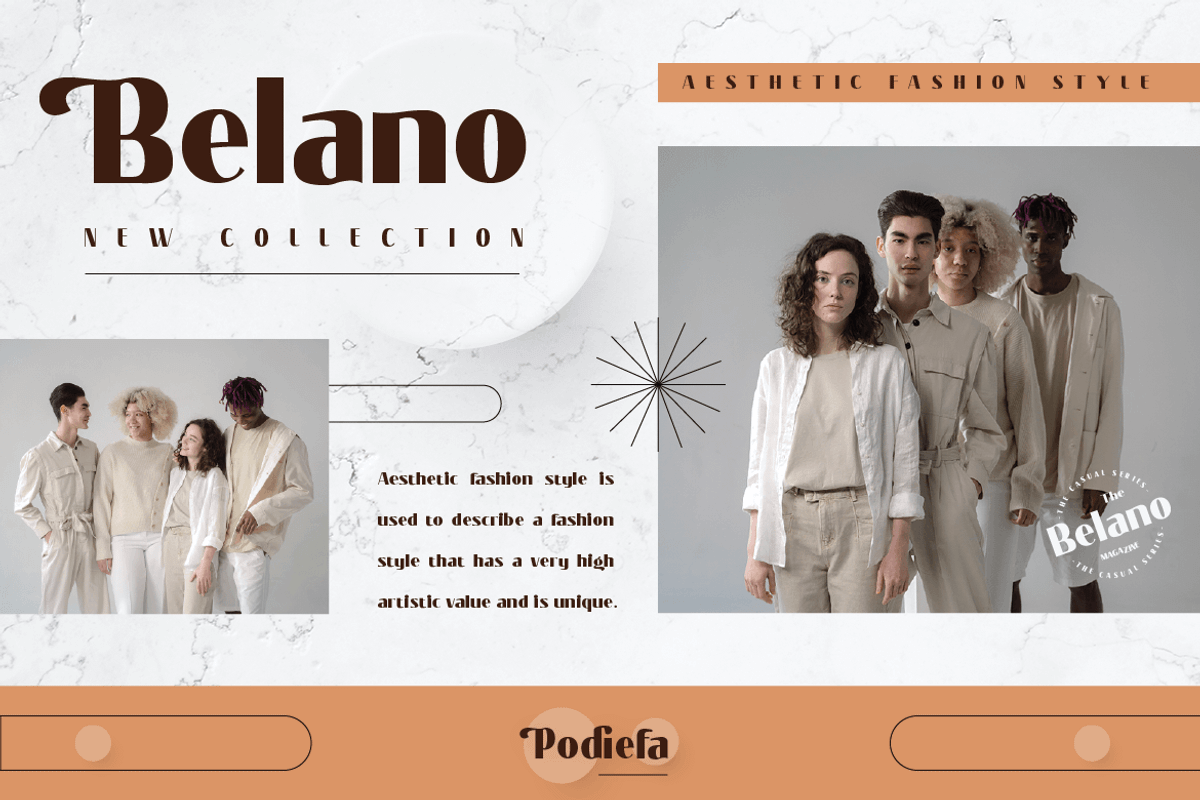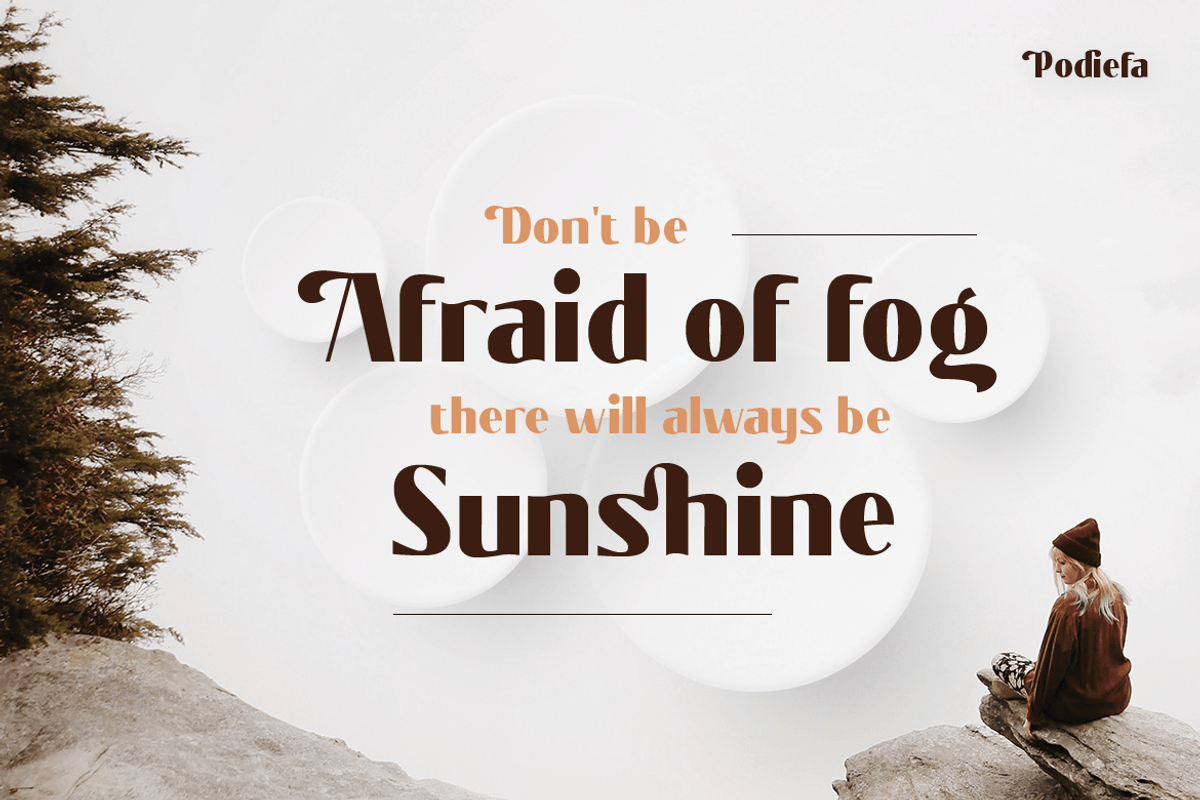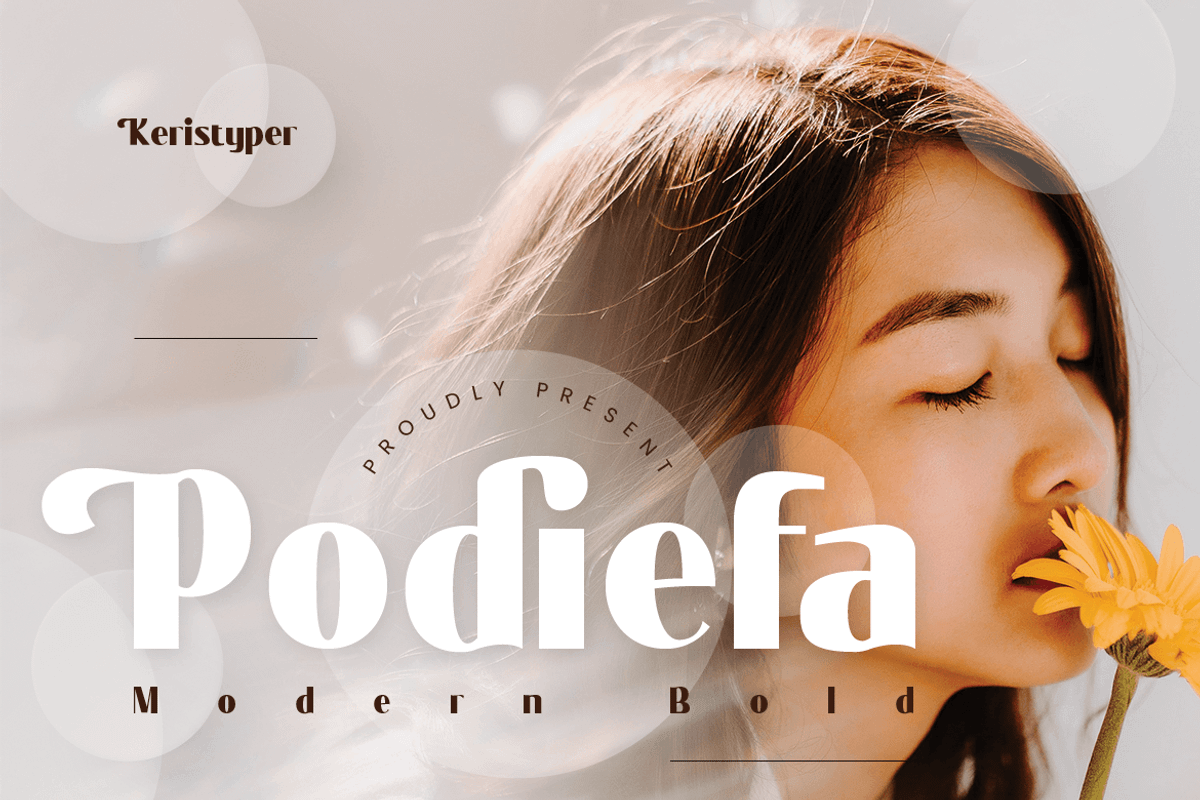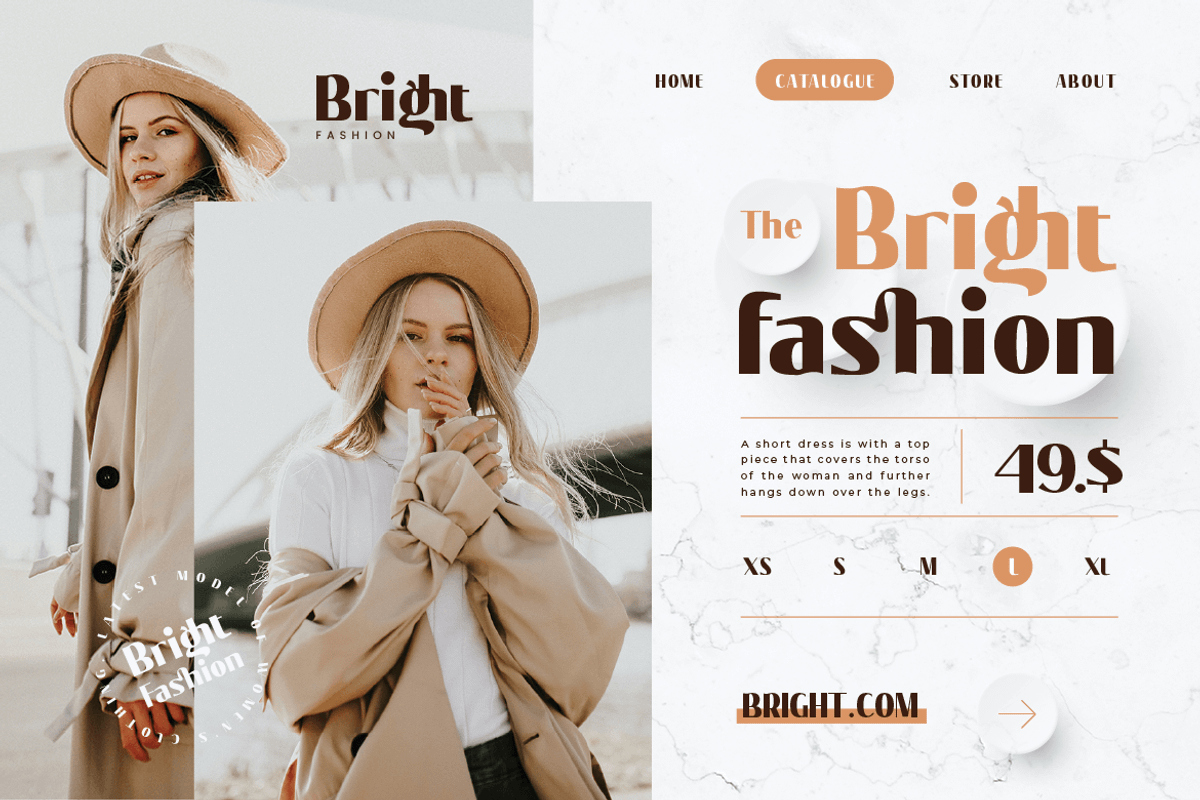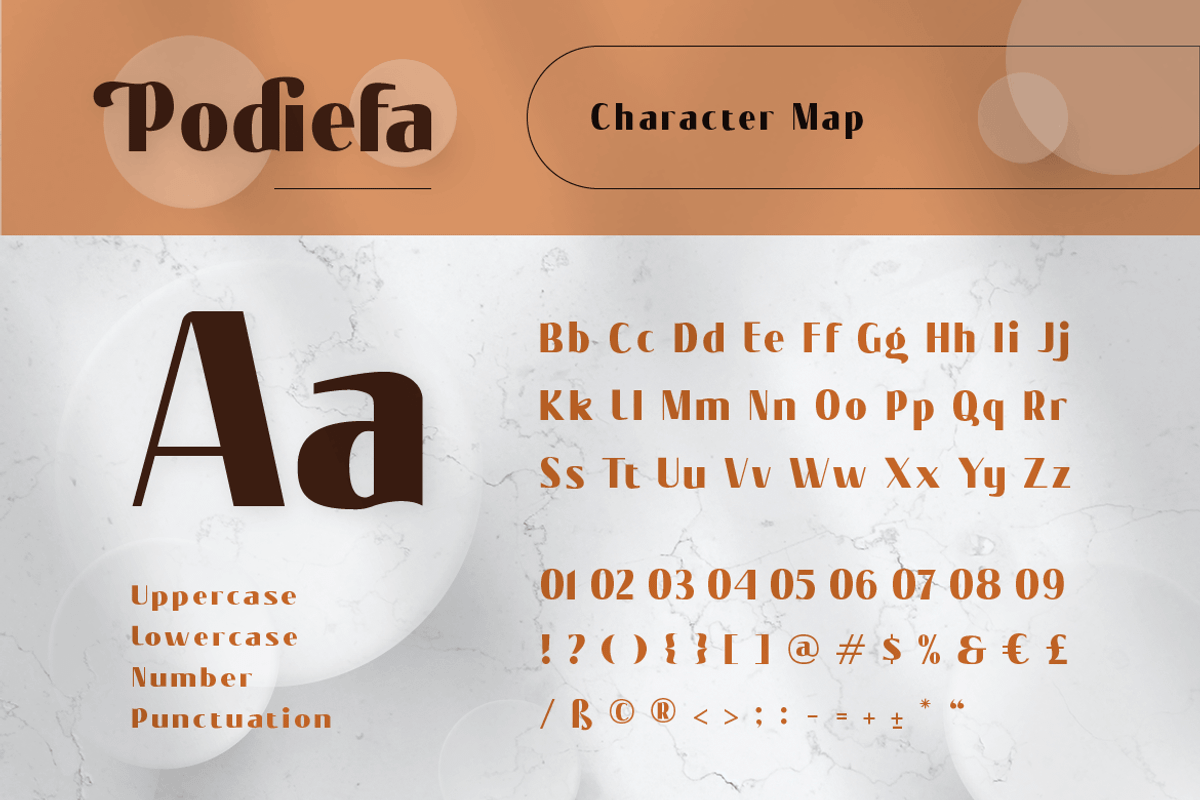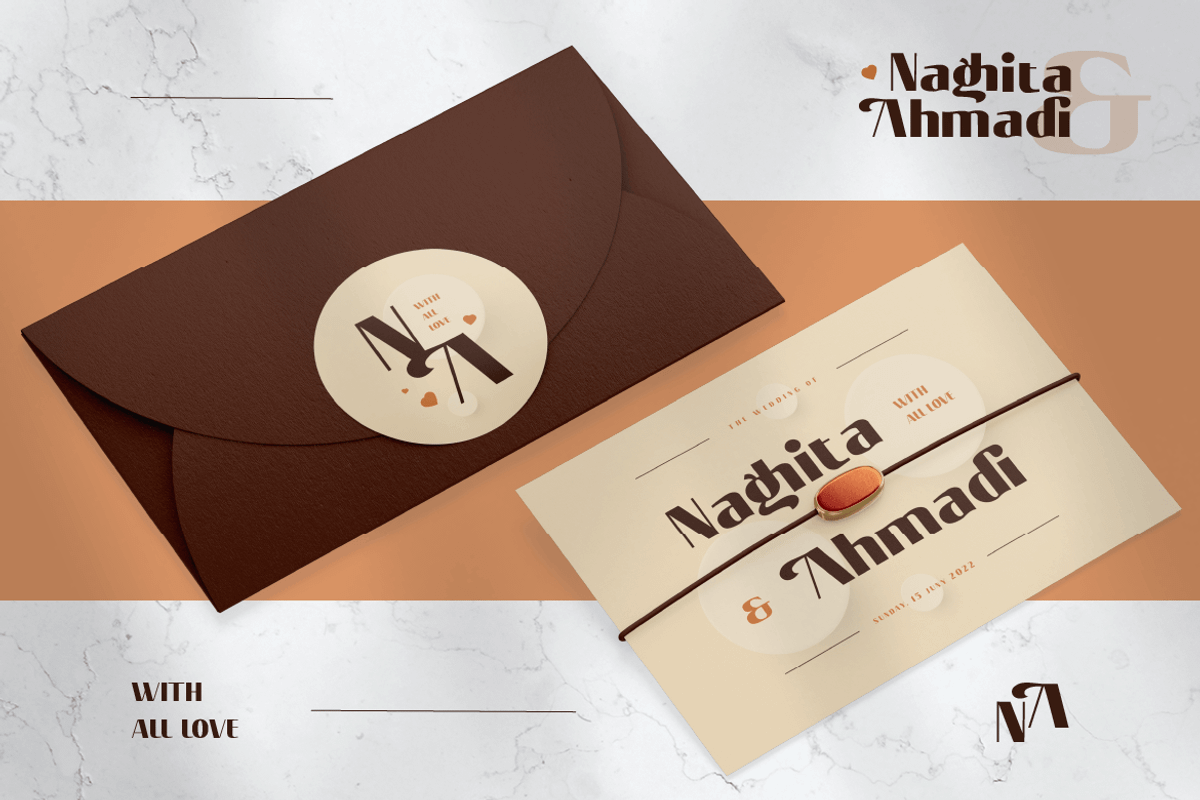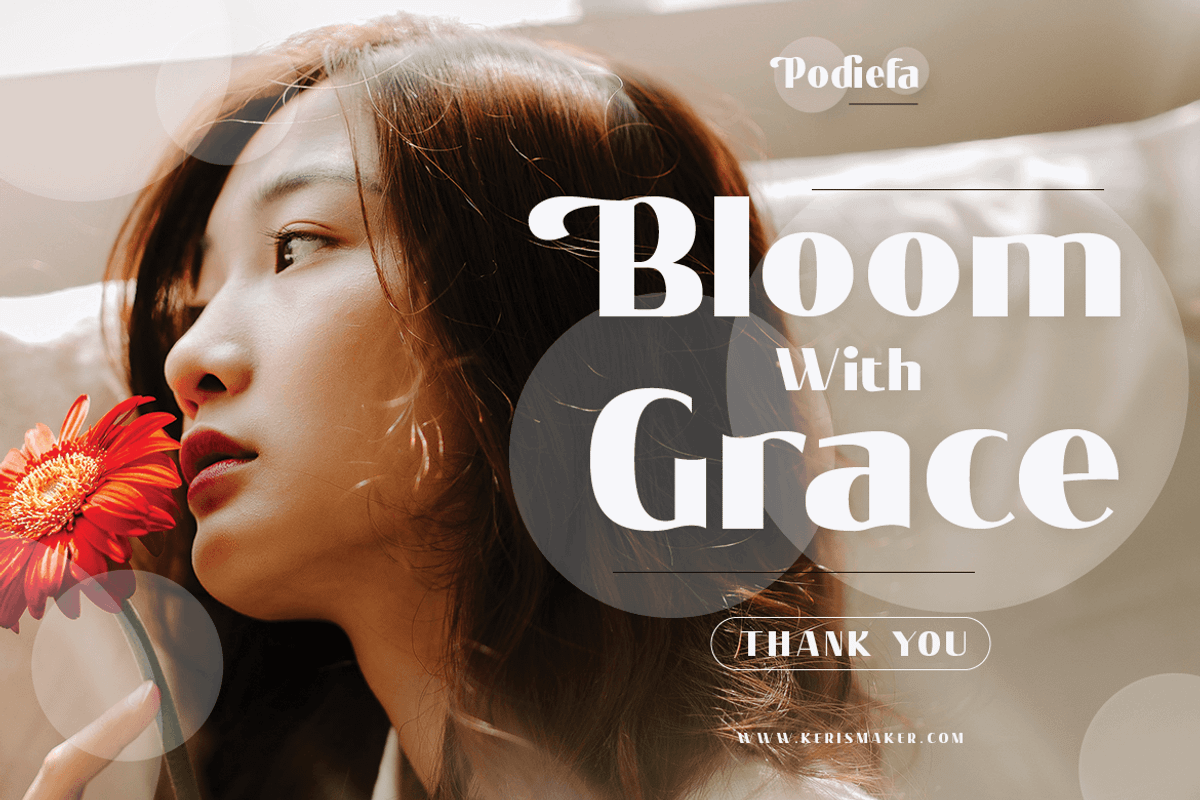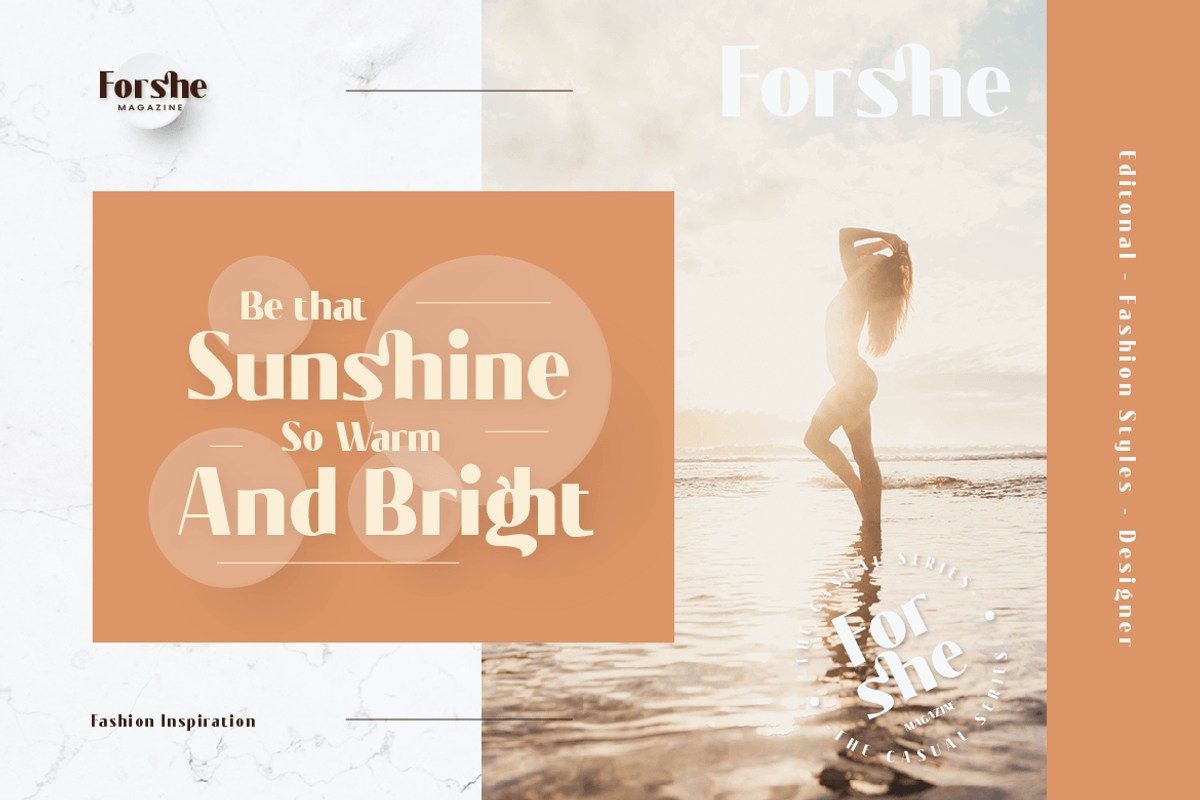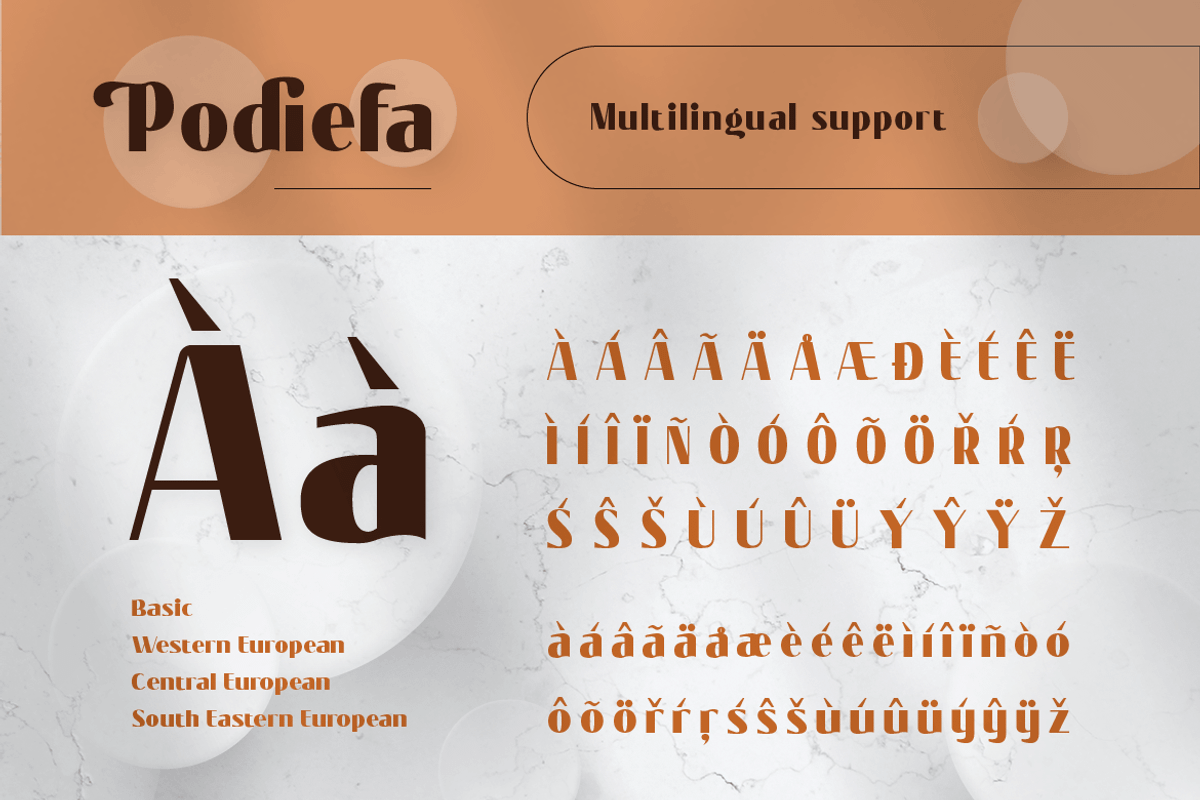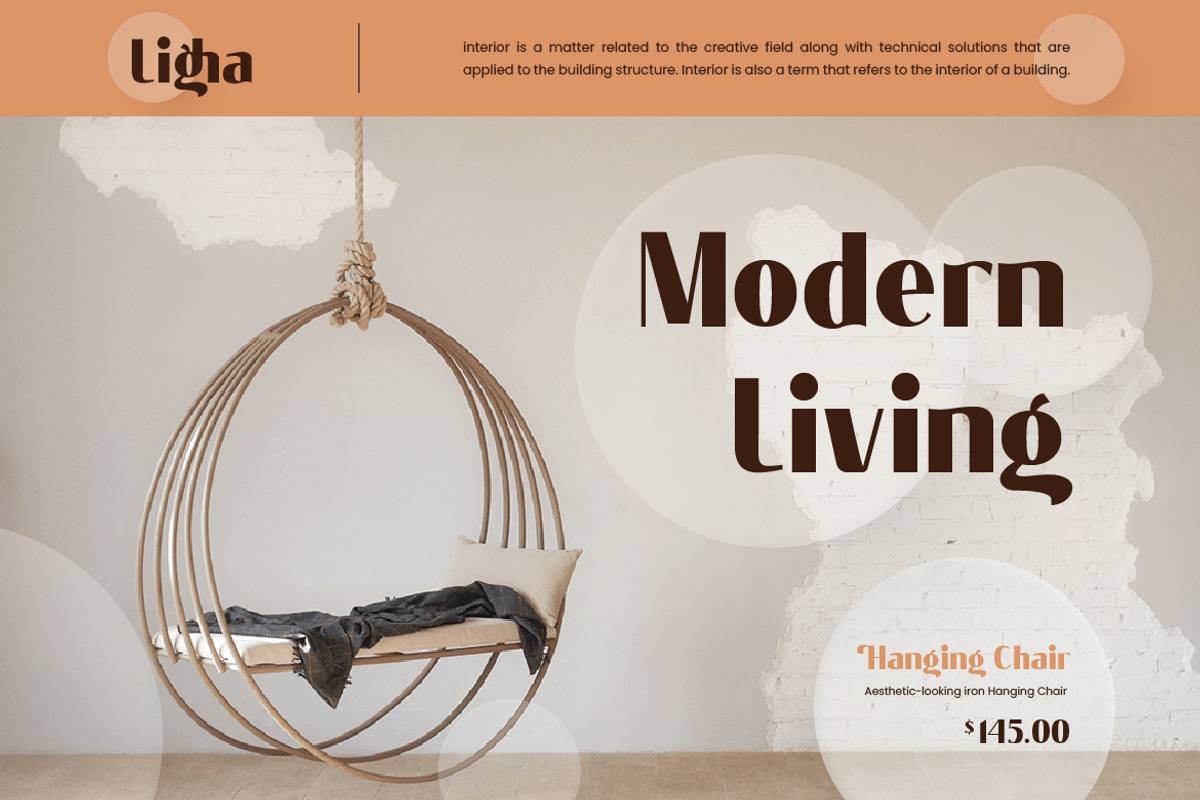
Podiefa
Podiefa is a sans-serif display font with visual elegance and smooth curves. This font is good for logo design, Social media, Movie Titles, Books Titles, short text even long text letters, and good for your secondary text font with sans or serif.
- Standard Uppercase & Lowercase
- Multilingual : ä ö ü Ä Ö Ü ß ¿ ¡
- Alternate & Ligature